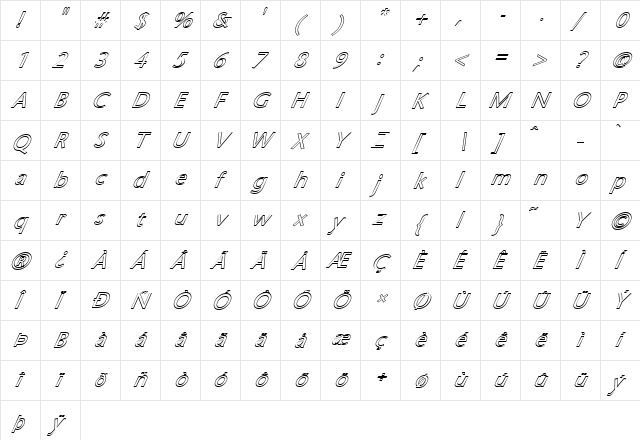
FZ BASIC 25 HOLLOW ITALIC Normal
Design Context for FZ BASIC 25 HOLLOW ITALIC Typeface
FZ BASIC 25 HOLLOW ITALIC is a composed and adaptable typeface that performs quietly and consistently across a wide range of design contexts. The slanted form adds forward momentum and visual energy.
Pro Tip: Try FZ BASIC 25 HOLLOW ITALIC for annotation and caption copy alongside an upright companion — the contrast in angle creates a dynamic but ordered typographic system.